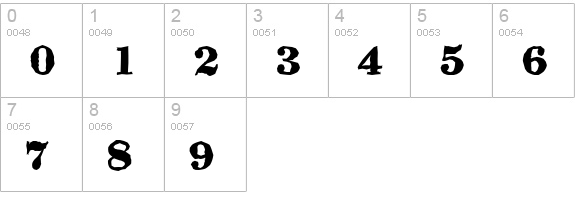
WichitaAntique-Xbold-Regular Font Details
WichitaAntique-Xbold-Regular is the standard, neutral variant in the WichitaAntique typeface family \xE2\x80\x94 well suited to general body text, paragraphs, and standard typographic work.
WichitaAntique-Xbold-Regular is a timeless and elegant font that exudes a sense of nostalgia and sophistication. Its classic serif style adds a touch of vintage charm to any design project, making it perfect for invitations, signage, and branding. With its bold weight, this font commands attention and is sure to make a statement. The best part? WichitaAntique-Xbold-Regular is available for free download at FontsMarket.com, making it easily accessible for all your creative endeavors. Embrace the beauty of this font and add a touch of old-world elegance to your designs today.